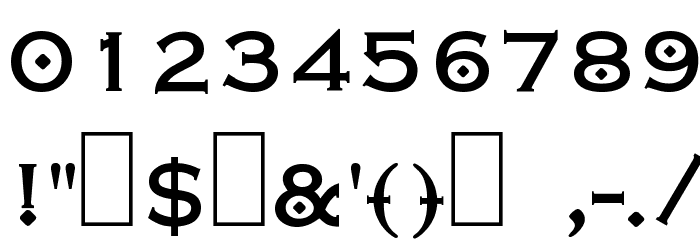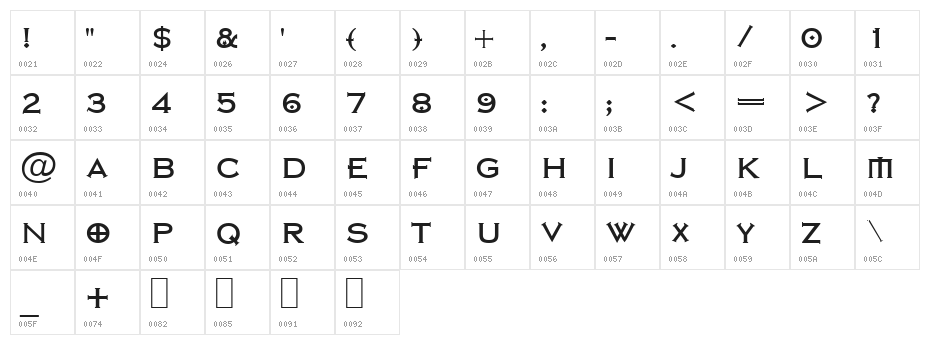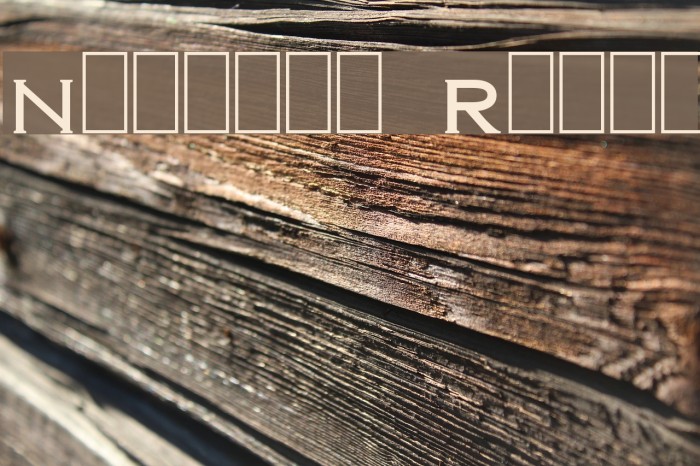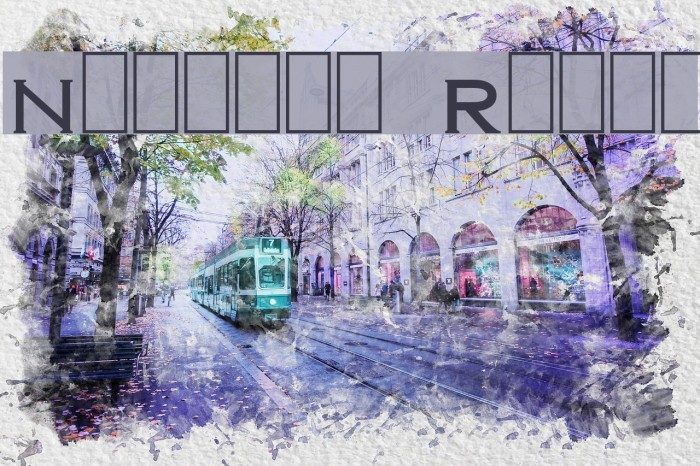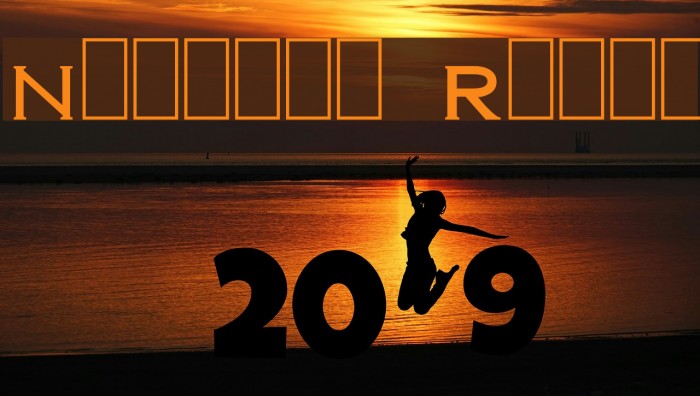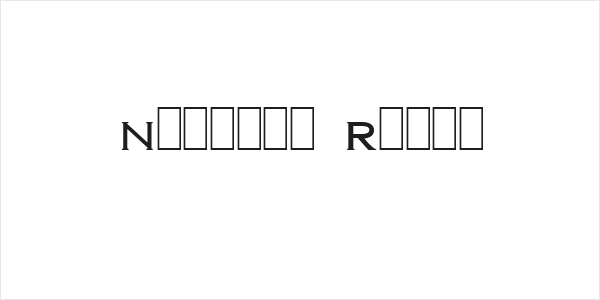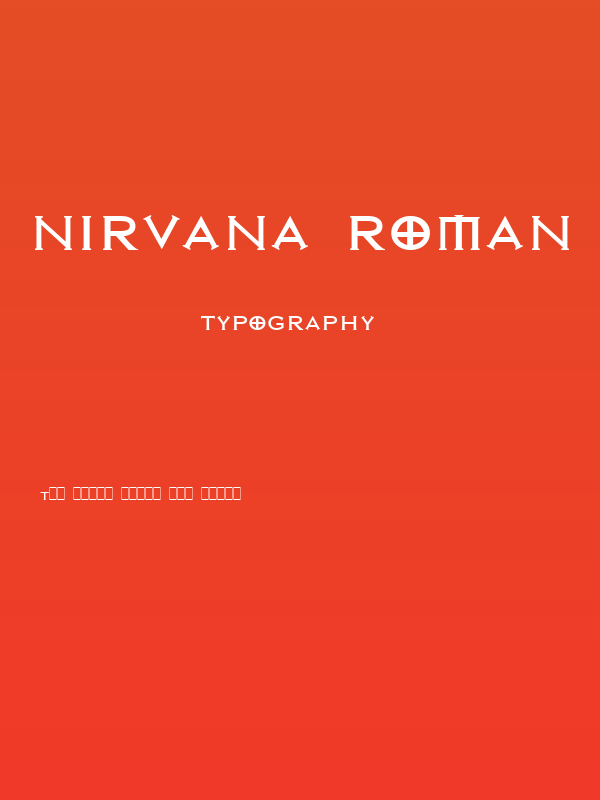
Nirvana Roman Font
Nirvana Roman Description
This font features a bold and striking design with a modern twist. The uppercase letters are characterized by sharp, angular serifs and a geometric structure, giving them a strong presence. The lowercase letters maintain a similar style, ensuring consistency throughout the typeface. The numbers are distinct and easy to read, with a slightly condensed appearance. Special characters are designed to match the overall aesthetic, making them suitable for various applications. The font's unique style is ideal for projects that require a bold and memorable look.
| Proposed Projects | Ideal for branding, posters, headlines, and editorial design. |